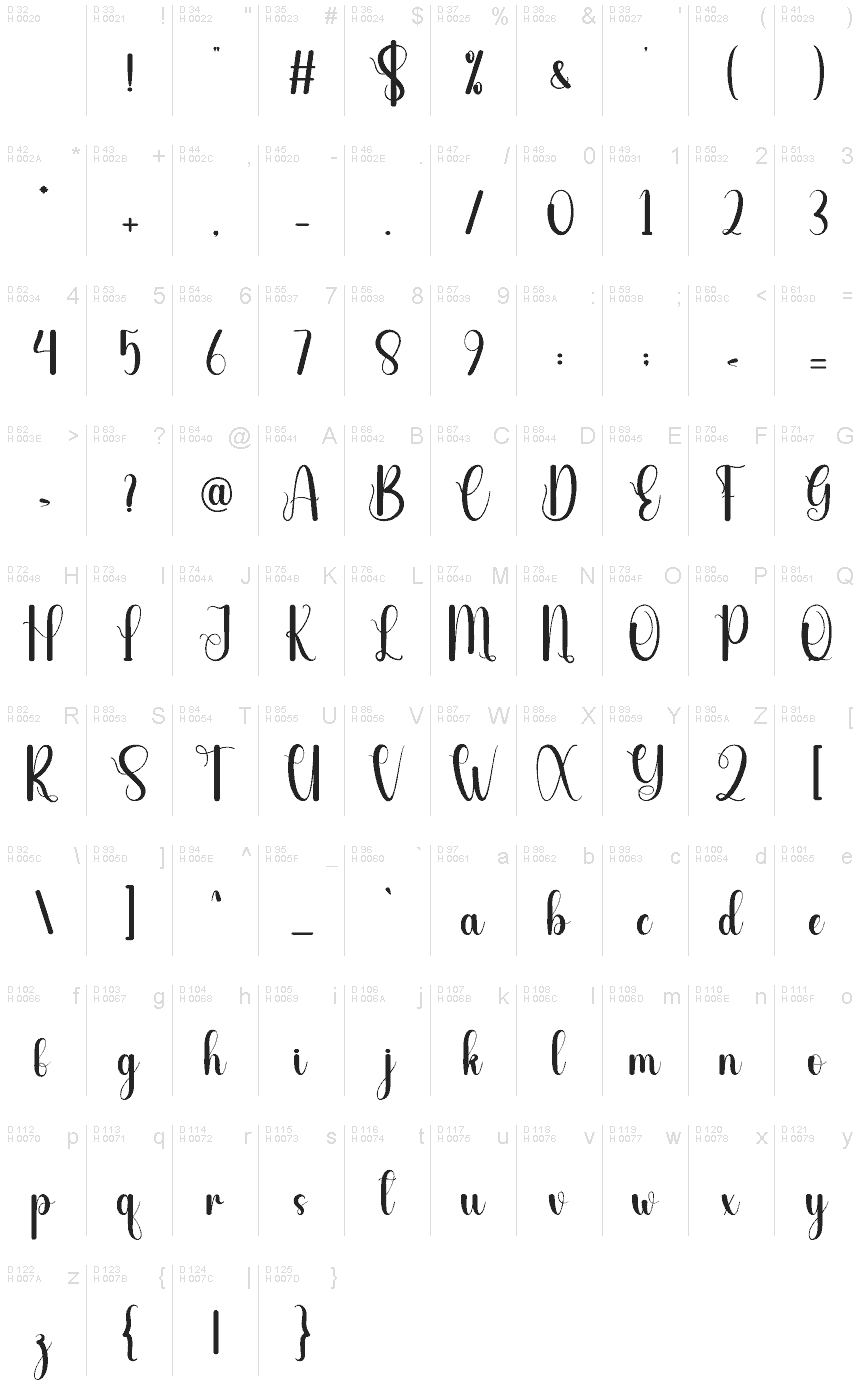
Mothers House
Mothers House font by Andi Moz is a captivating calligraphy font that radiates elegance and romance. With flowing lines and decorative touches, this expressive design combines vintage inspiration with a contemporary twist. Its sophisticated appearance makes it ideal for adding a touch of class to your visual projects.